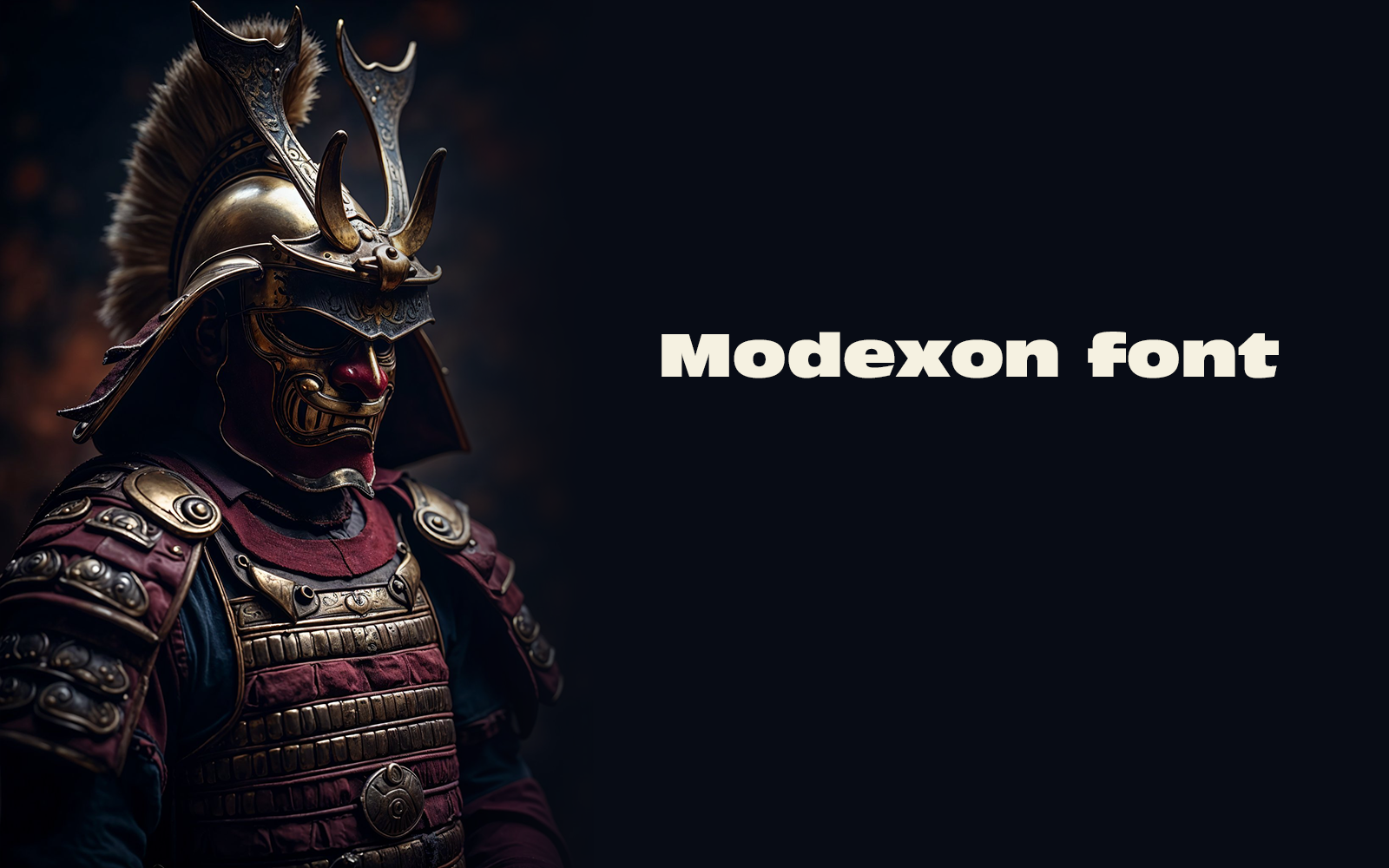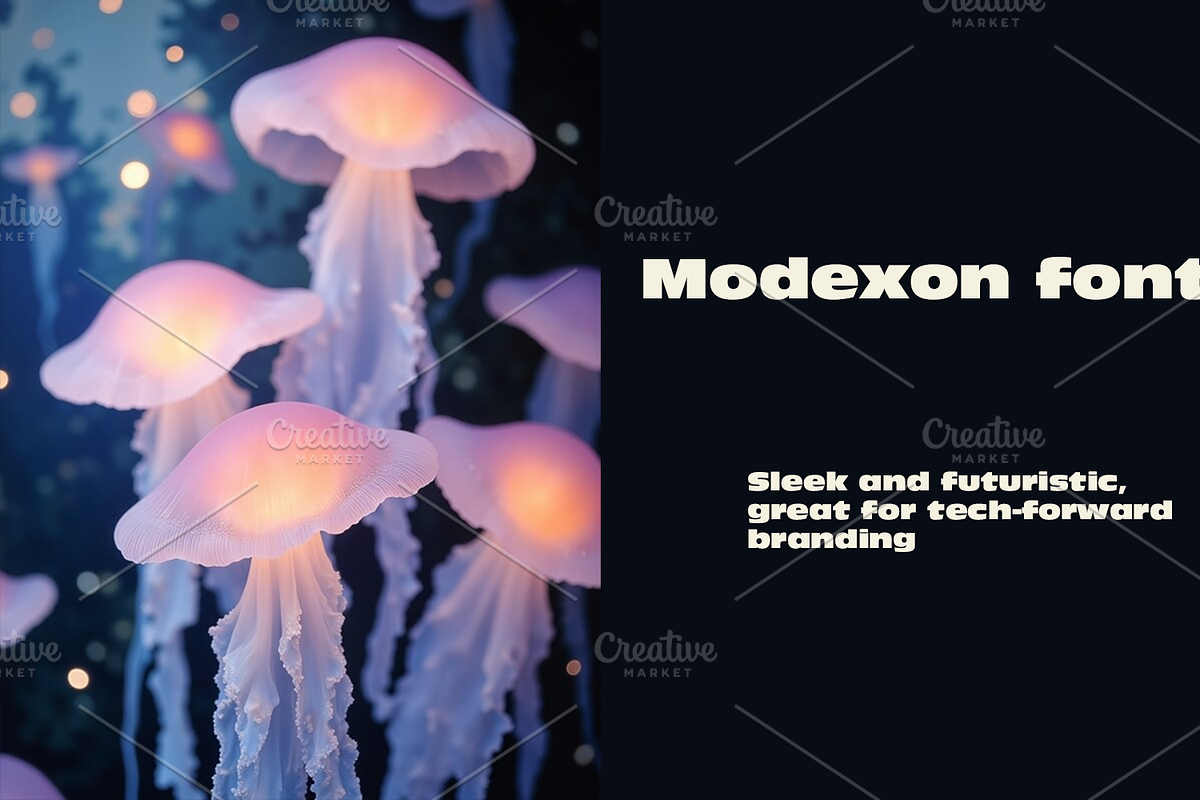
Modexon font-Regular-0122-25
Designed for the Digital Era.
Modexon is the ultimate expression of modern clarity. Its balanced geometry and minimalist design deliver both elegance and utility—ideal for digital interfaces, branding systems, and forward-thinking design projects. Whether you're building a cutting-edge app or refining your brand's voice, this font brings precision and confidence to every character.
Clean. Smart. Built for tomorrow.